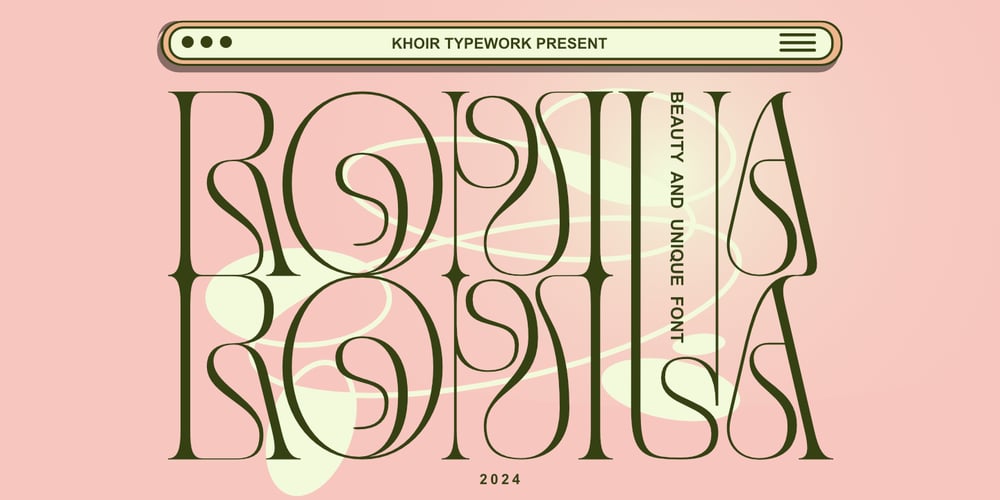
Romua Font Family was designed by Muhammad Romzul Khoir and published by Khoir. Romua contains 1 styles and family package options. The Romua thin serif font is elegant and has a unique shape, soft feel that brings the feel of the ancient Roman era, giving it a character and edge that is different from the others, even though the shape is unique, it has high readability so it is suitable for use for event posters, logos, cover, magazine, branding, etc Romua Uppercase Lowercase 75+ Language Alternates Font So what are you waiting for? immediately purchase this font.